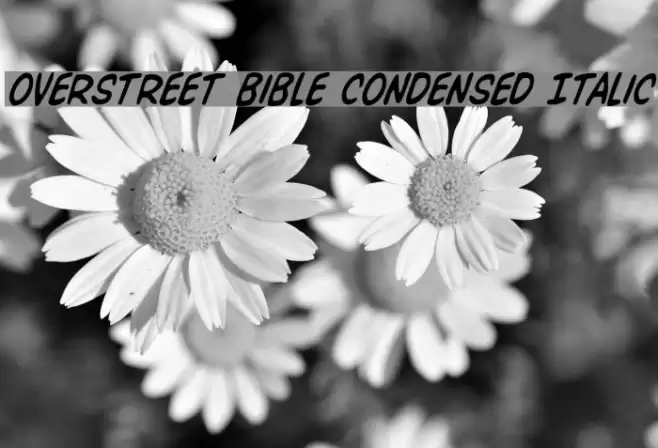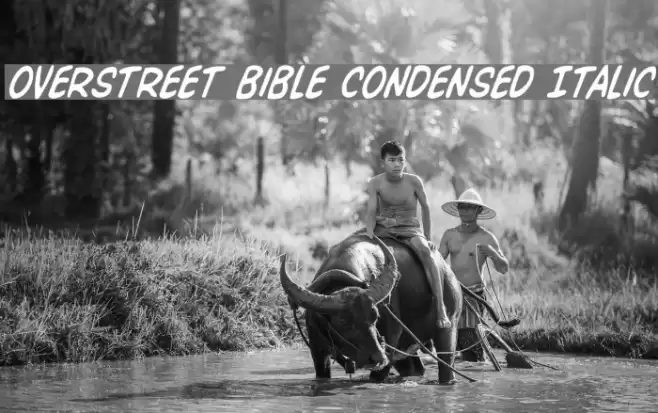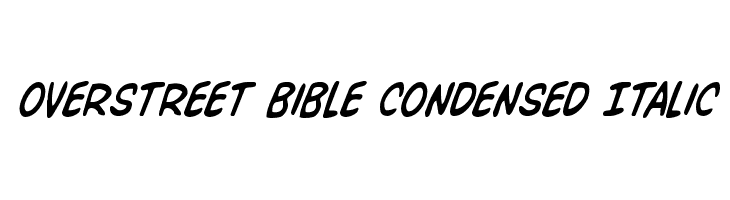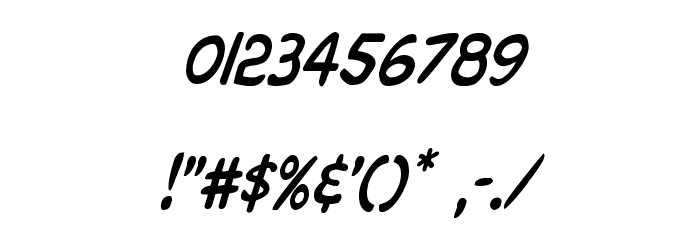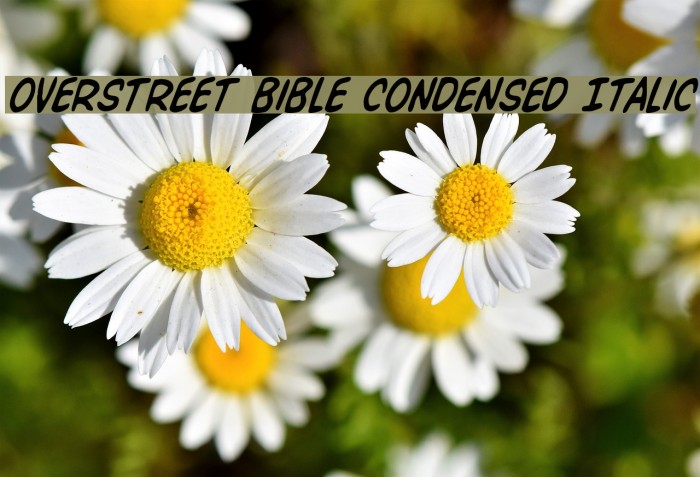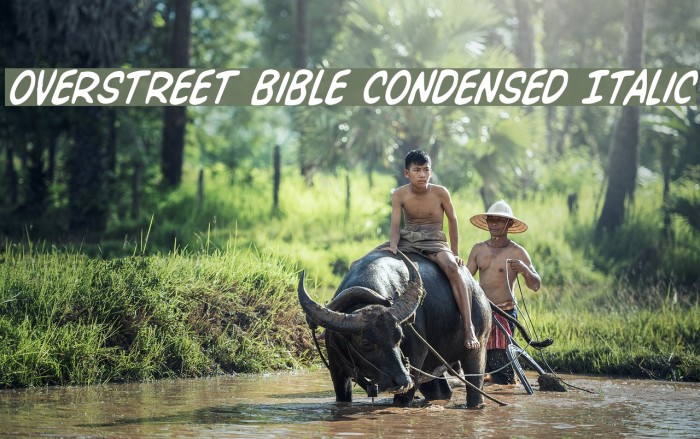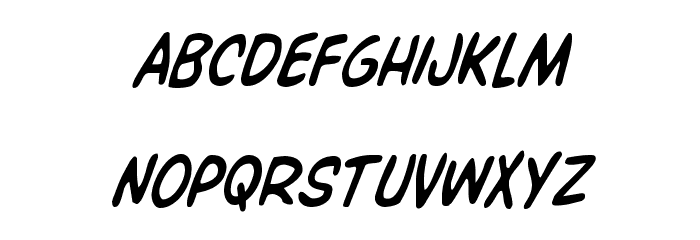
Overstreet Bible Condensed Italic Font
Overstreet Bible Condensed Italic Description
This font features a dynamic and energetic style with a condensed and italicized form. The characters are bold and slightly slanted, giving a sense of motion and fluidity. The strokes are consistent in thickness, providing a uniform appearance across all characters. The uppercase and lowercase letters are well-balanced, and the numbers are clear and legible. Special characters are distinct and maintain the overall style of the font. This font is suitable for projects that require a modern and lively touch.
A bold, condensed, and italicized font with a dynamic and energetic style from Comic fonts.
- Proposed Projects: Ideal for sports branding, dynamic posters, modern advertisements, and energetic event flyers.